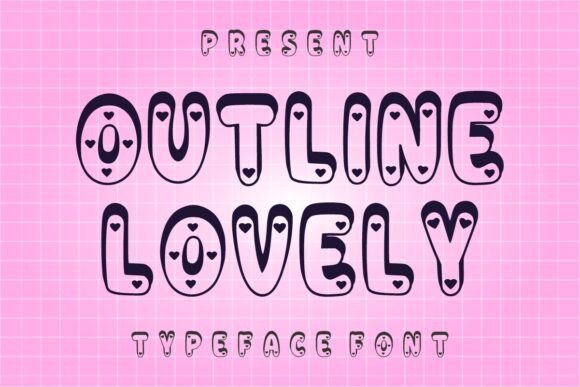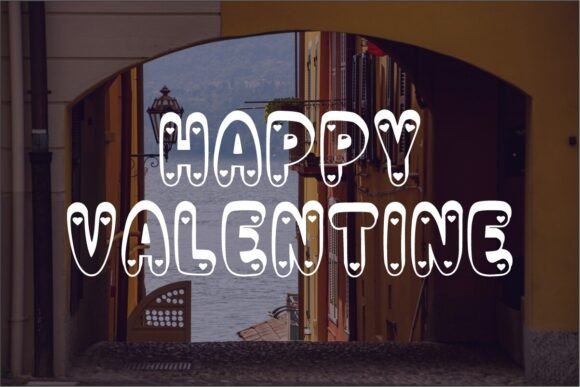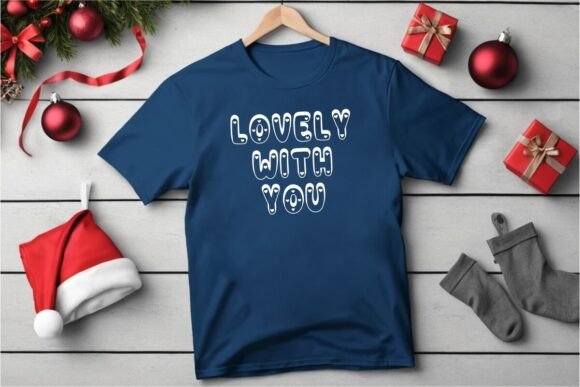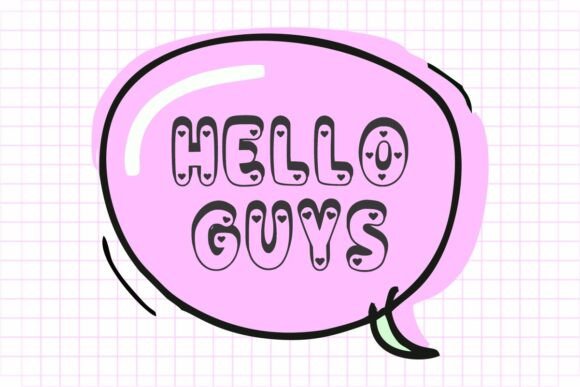
Outline Lovely Font
About the Outline Lovely Font
Meet Outline Lovely Font, a stunning font that brings a touch of elegance and professionalism to any design. Outline Lovely a cute and adorable display font. Whether you use it for cartoon-related designs, children’s games, or just any creation that requires a lovely touch, this font will be an amazing choice
Outline Lovely thrives in display applications such as logos, headlines, short-form text on posters, and packaging for products aimed at a younger demographic or those emphasizing playfulness and charm. Its whimsical nature makes it unsuitable for body text or UI elements where readability over extended lengths is crucial.
This font’s core personality is undeniably playful and friendly. To balance its lightheartedness, consider pairing it with a clean sans-serif like Open Sans for body copy or a more structured serif like Merriweather for a touch of sophistication. For a contrasting yet harmonious effect, a geometric sans-serif such as Montserrat could provide a modern counterpoint.
Avoid using Outline Lovely in contexts requiring seriousness or formality. Its inherent cuteness would clash with such settings. Instead, reserve it for projects where its cheerful aesthetic is a key design element.
Outline Lovely Font Usage Examples
Outline Lovely Font Example